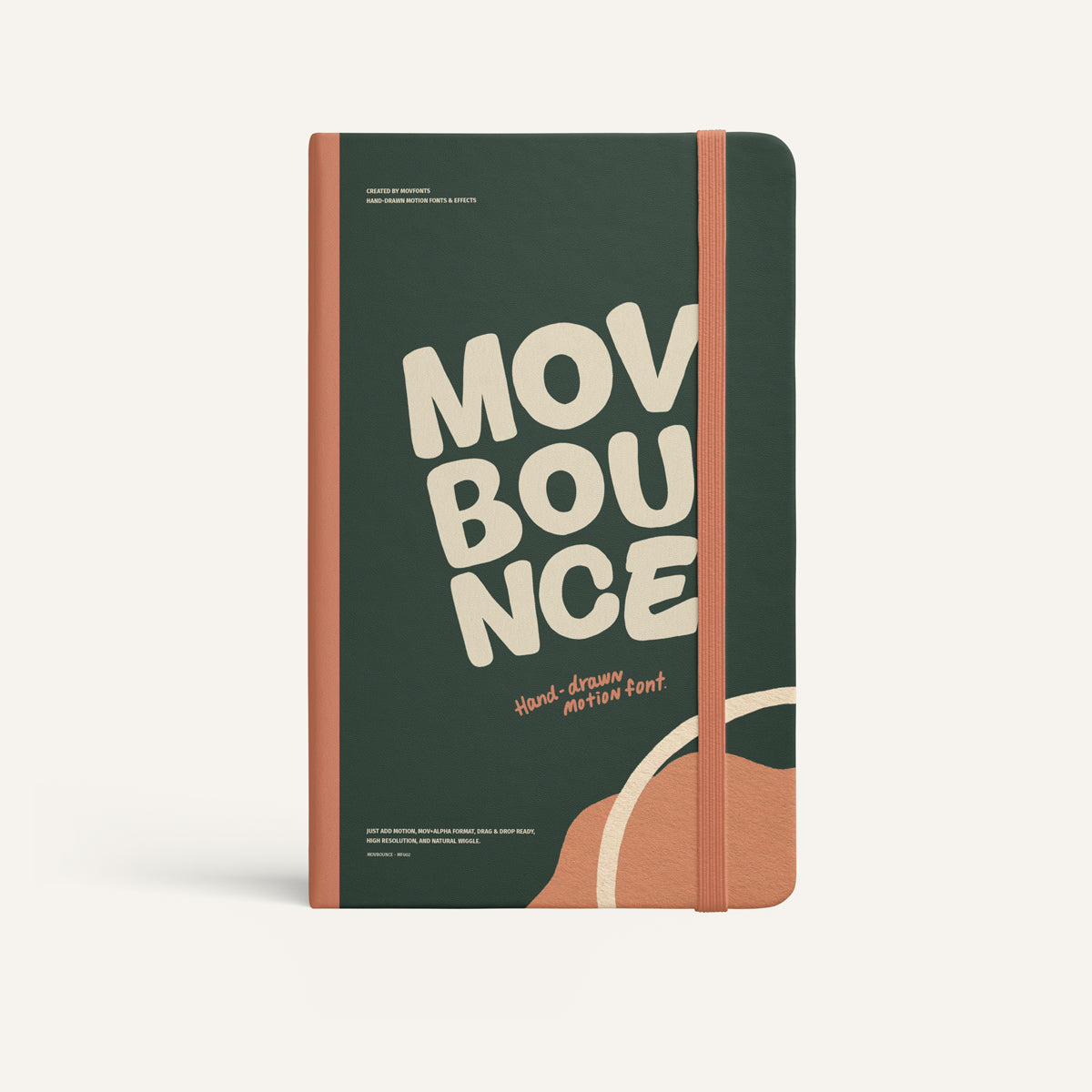
MOVBOUNCE
MOVBOUNCE is full of motion and mischief. It flips the mood in a snap.
Big, quirky, hand-drawn motion that adds instant personality.
It’s not for every scene— but when it works, it really works.
Just drag, drop, and let it bounce. Smaller file size, louder attitude.
Maybe too much?That’s the charm.
・100% Hand-Drawn
・Customize Freely
・Natural Wiggle in Every Lines
・Animated and Loop Ready
・26 Animated Alphabets (A–Z)
・8 Animated Circle Intros (before each letter)
+ Bonus Motion Effects
18 extra hand-drawn motions.
Shapes, lines, sparks.
Just add some flair.
Add pop. Add motion. Add fun.